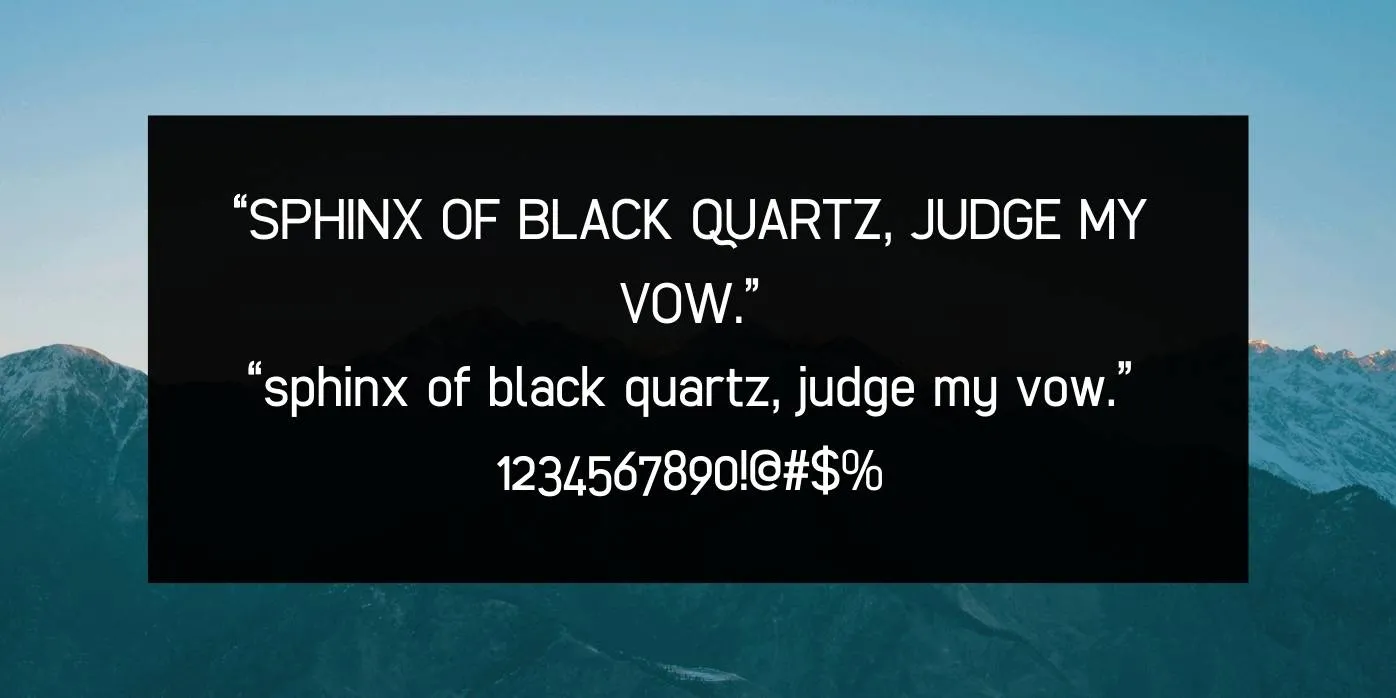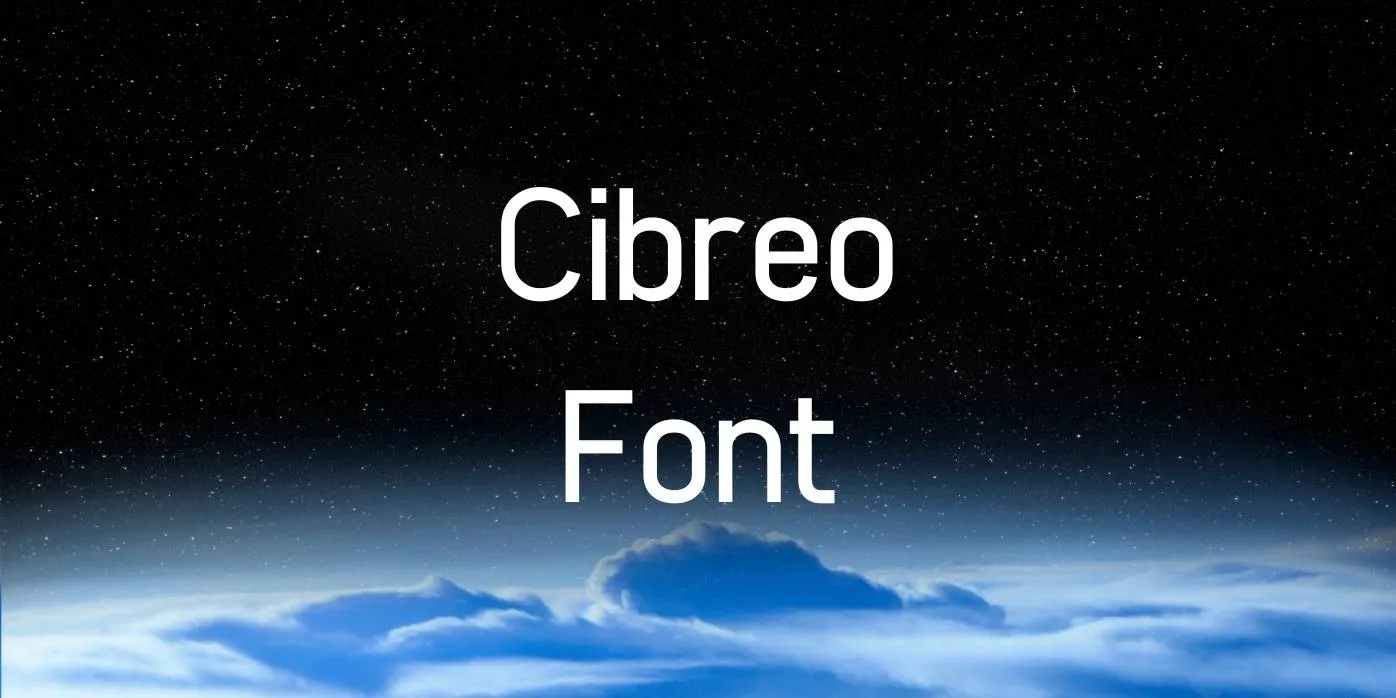
Cibreo Font
Here we discuss detailed information about the Cibreo Font. This font is a very unique and different font and was designed by Francesco Canovaro and Andrea Tartarelli. They release this font by Zetafonts. It consists of 263 characters and this font supports the file format TTF (Truetype Font).
This font is a geometric sans serif type font. The name of this typeface is taken from an Italian recipe. It has many elements like characters, numbers, Small letters, capital letters, symbols, and characters making this font very unique and different. It is a sans-serif font with a very soft and round shape look which makes your project nice and attractive.